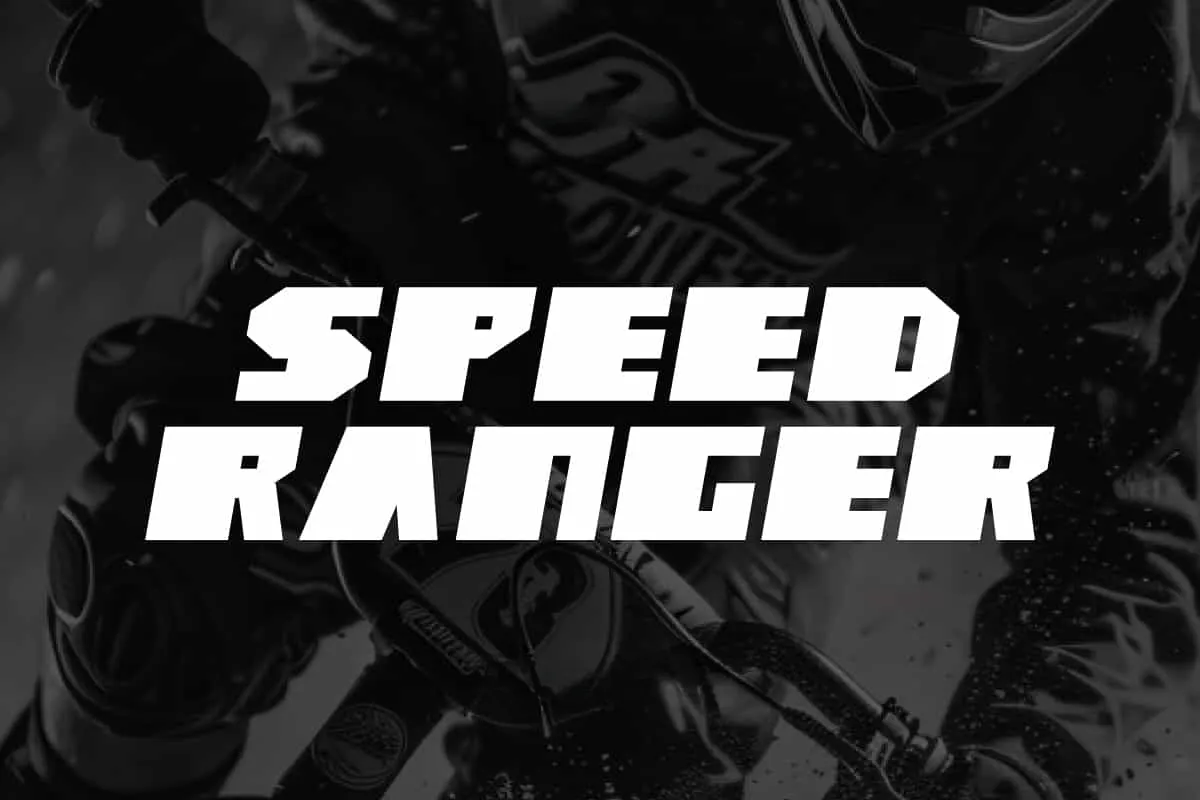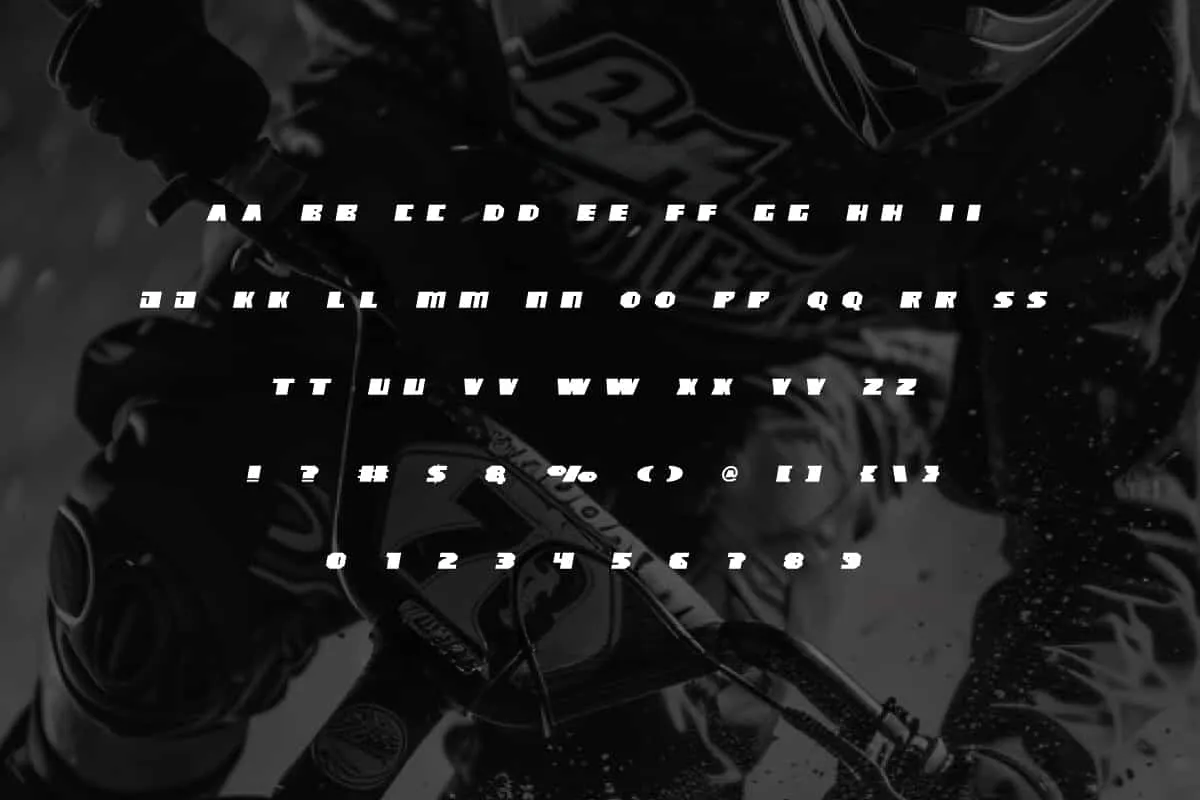
Speed Ranger is a bold and dynamic display font that captures a sense of energy and movement. Designed with strong lines and stylish curves, this font is perfect for projects that need a powerful and modern touch.
Its eye-catching design makes it ideal for sports branding, automotive themes, posters, and advertisements that aim to grab attention instantly.
With its sharp edges and sleek letterforms, Speed Ranger brings a professional yet adventurous vibe to any design. It works beautifully for large headlines, logos, and event banners where you want your message to stand out.
The font’s unique style ensures that it remains readable while adding a sense of speed and excitement.
Speed Ranger Font Family
Speed Ranger is not only great for bold statement pieces but also adaptable to creative projects like packaging, merchandise, or apparel design. Whether you are designing for print or digital platforms, this font will deliver a high-impact visual presence.